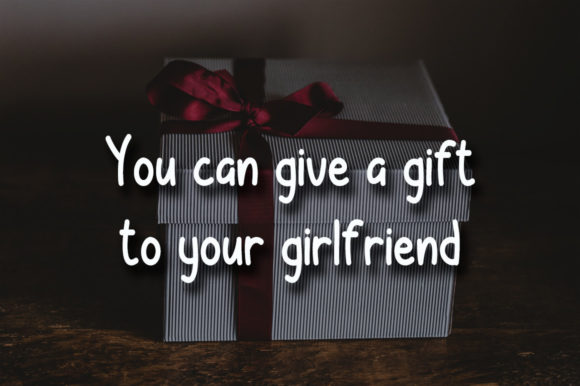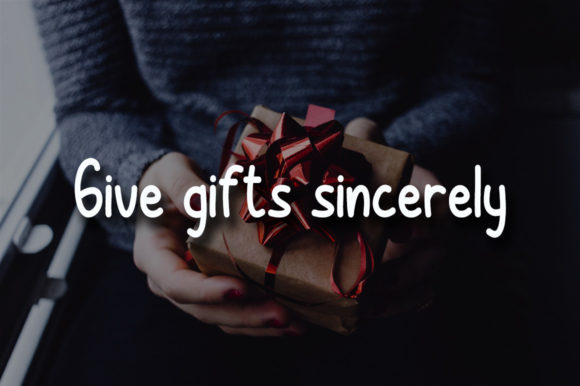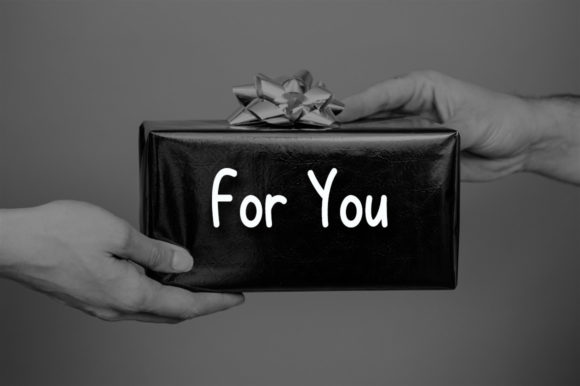
Introduction to Doorprize Font
Doorprize is a simple and adaptable handwritten font.
Its informal style and casual vibe will make this font a go-to choice for each of the creations that require a relaxed touch .
Key Features of Doorprize Font
Why Choose Doorprize Font?
Doorprize Font offers exceptional quality and versatility, making it a valuable addition to your design toolkit. Whether you’re creating for personal projects or commercial use, Doorprize Font delivers professional results.